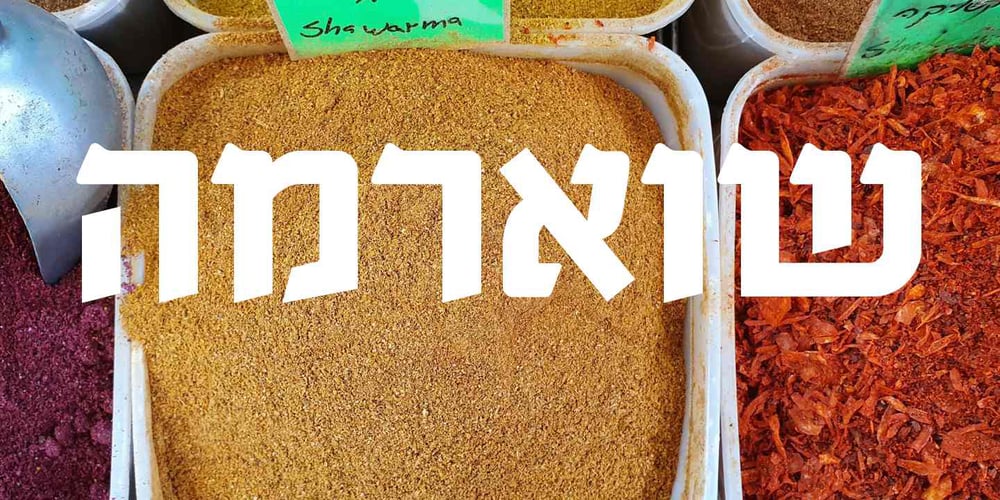
Shabazi MF Font Family was designed by Zvika Rosenberg and published by Masterfont. Shabazi MF contains 4 styles and family package options. Inspired by old engraving and tombstones. This font is unique by its flow and contrast, enabling traditional typeface gain a new and clear flow and rhythm.